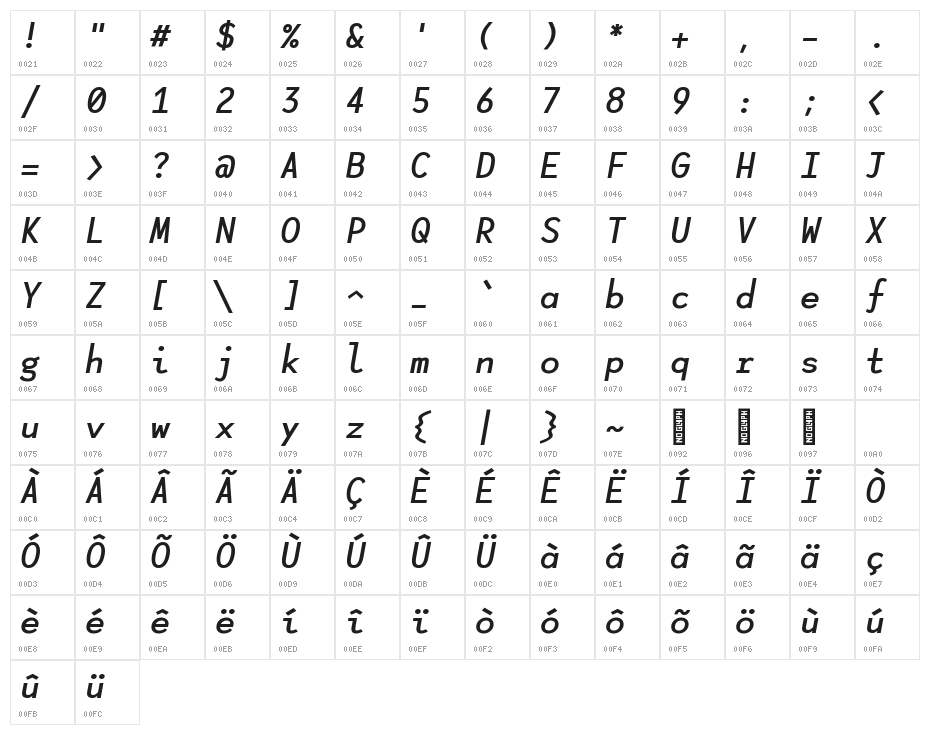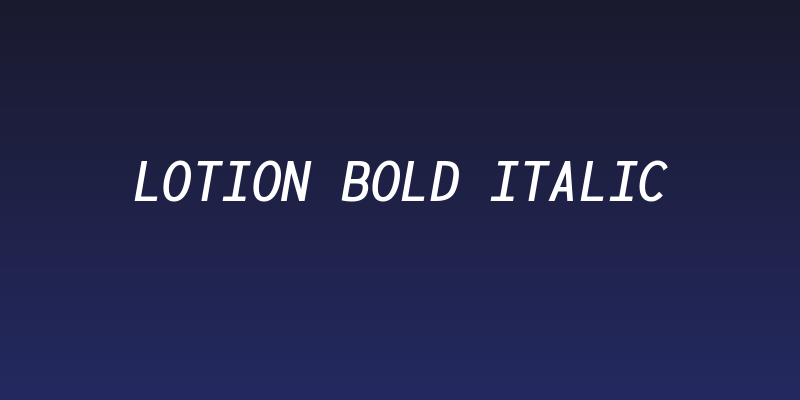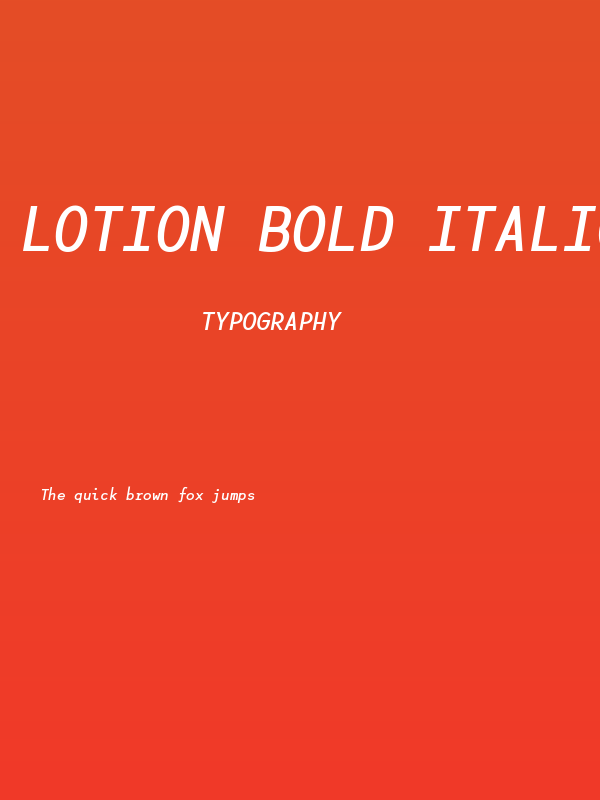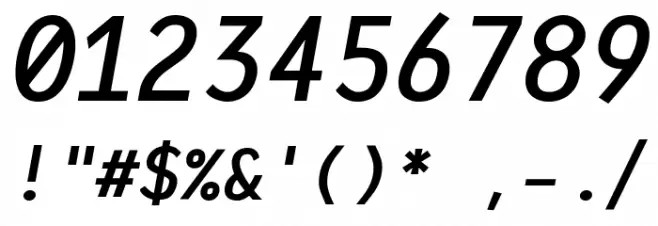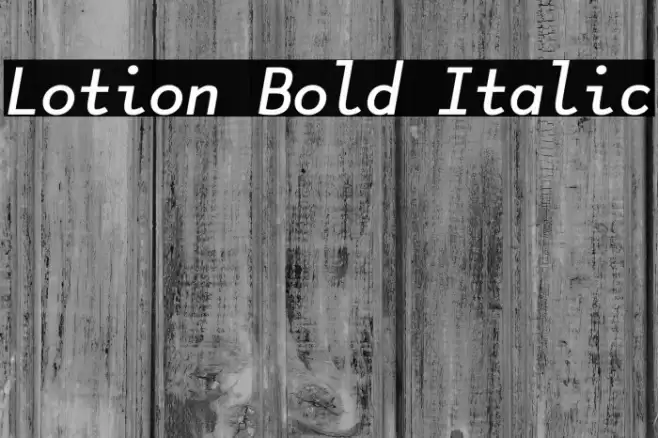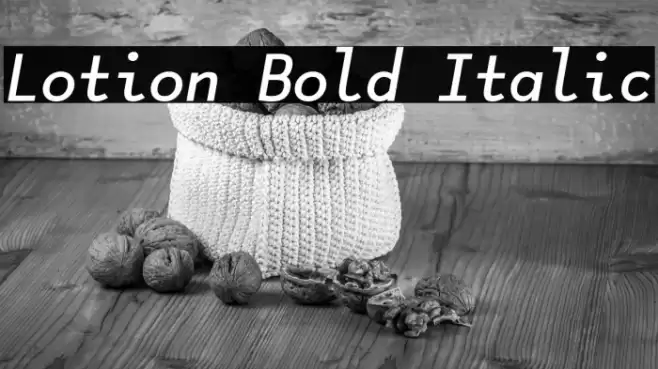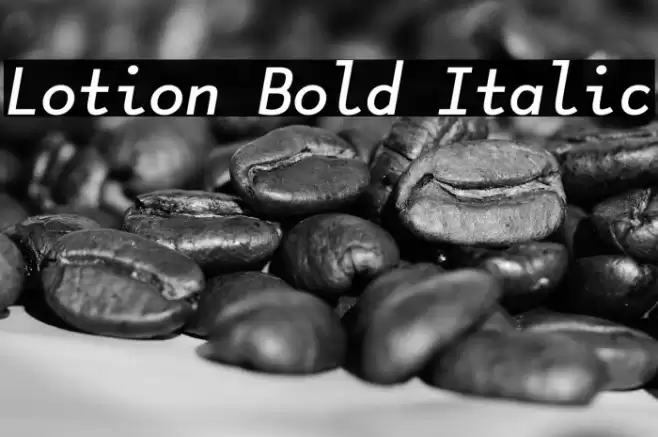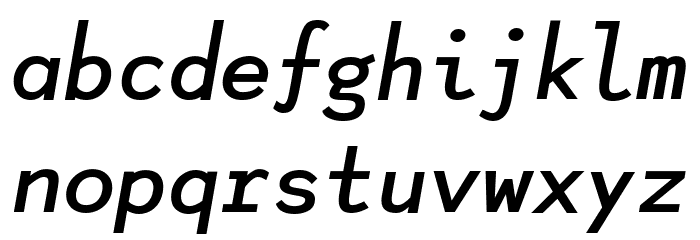
Lotion Bold Italic Font
Lotion Bold Italic Description
This font features a bold and italic style, combining strength with a dynamic slant. The uppercase letters are tall and assertive, while the lowercase characters maintain a consistent flow, enhancing readability. The numerals are clear and distinct, making them suitable for various applications. Special characters are well-defined, adding versatility to the font's use. The overall design is modern and sleek, with a slight forward tilt that adds a sense of motion and energy.
| Use Case | Headlines, Logos, Advertising |
| Proposed Projects | Ideal for branding, advertising, and editorial design where a strong and modern impression is needed. |